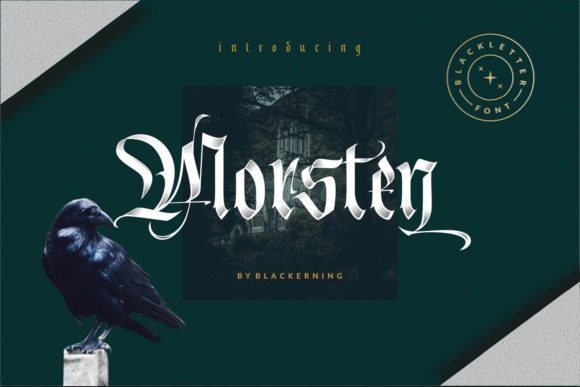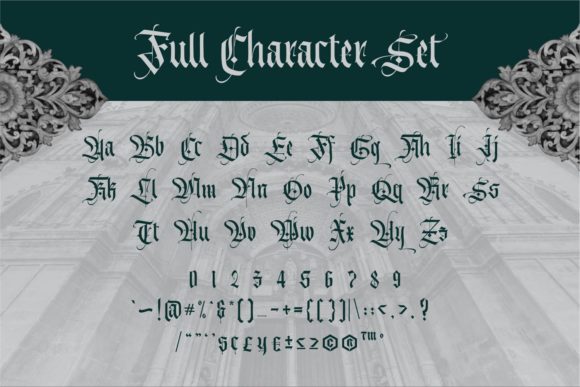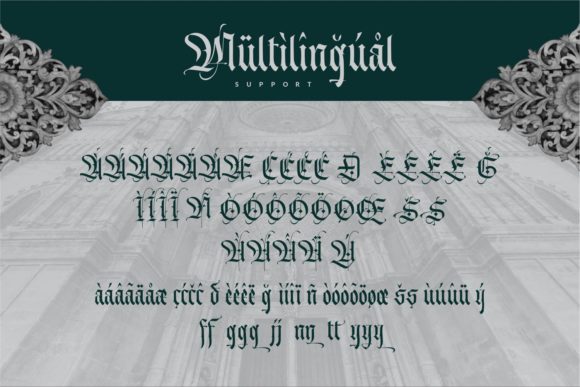
Morsten Font: A Unique Blackletter Font for Logo Design & Posters
About the Morsten Font
Introducing the Morsten Font, a beautifully crafted typeface designed to elevate your creative projects. Morsten is a gothic styled blackletter font. Authentic and genuine, this font will elevate each of your formal design ideas. Add it confidently to your projects, and you will love the results.
Morsten’s strong vertical strokes and sharp serifs make it ideal for headlines, logos, and short, impactful text on posters or packaging. Its gothic style lends itself well to projects requiring a sense of authority or tradition, such as branding for legal firms or high-end products. However, its intricate detail makes it unsuitable for body text or UI elements where readability at smaller sizes is crucial. Long paragraphs set in Morsten would be visually overwhelming and difficult to read.
Consider pairing Morsten with a clean sans-serif like Open Sans for body copy to create a balanced and professional feel. For a more modern aesthetic, a geometric sans-serif such as Montserrat could complement its sharp angles. Alternatively, a delicate script font could add a touch of elegance to invitations or other projects where a formal yet refined look is desired.
Morsten projects an air of classic sophistication and authority. Its bold, yet refined forms convey strength and trustworthiness, making it a powerful choice for brands seeking to establish a presence of gravitas and timeless elegance.
Morsten Font Usage Examples
Morsten Font Example